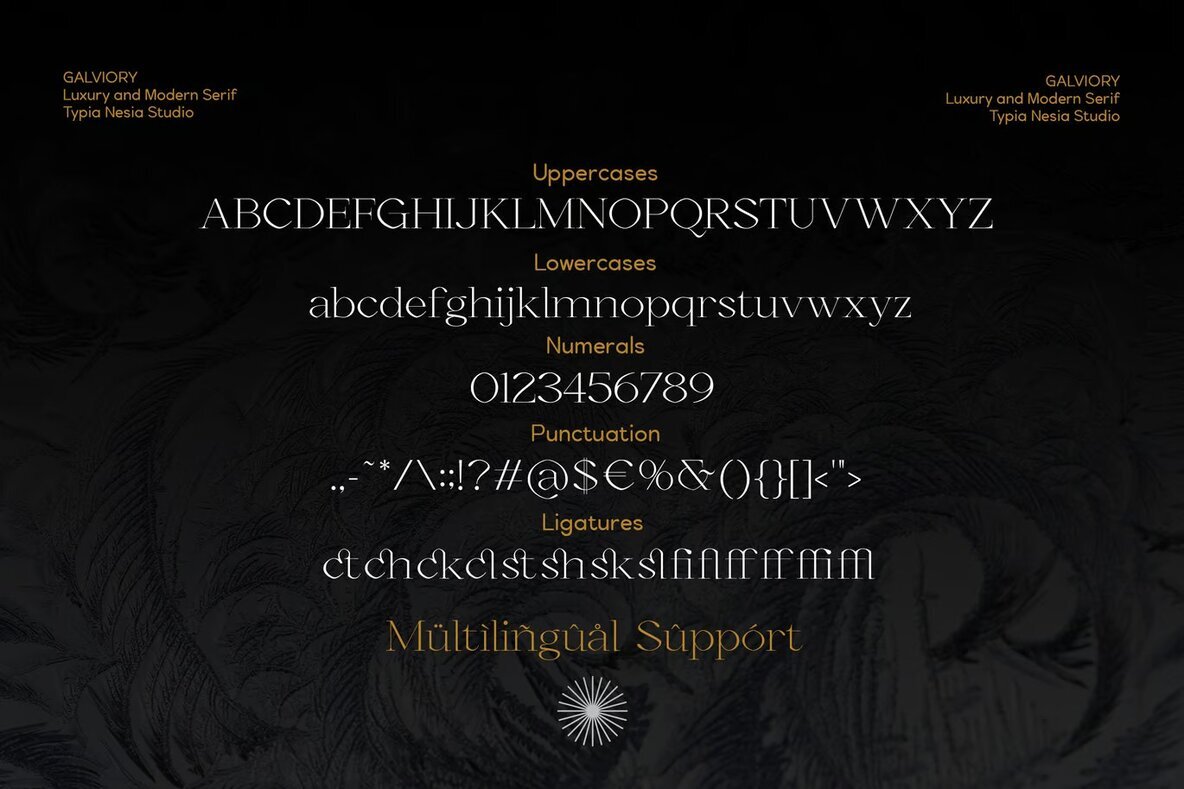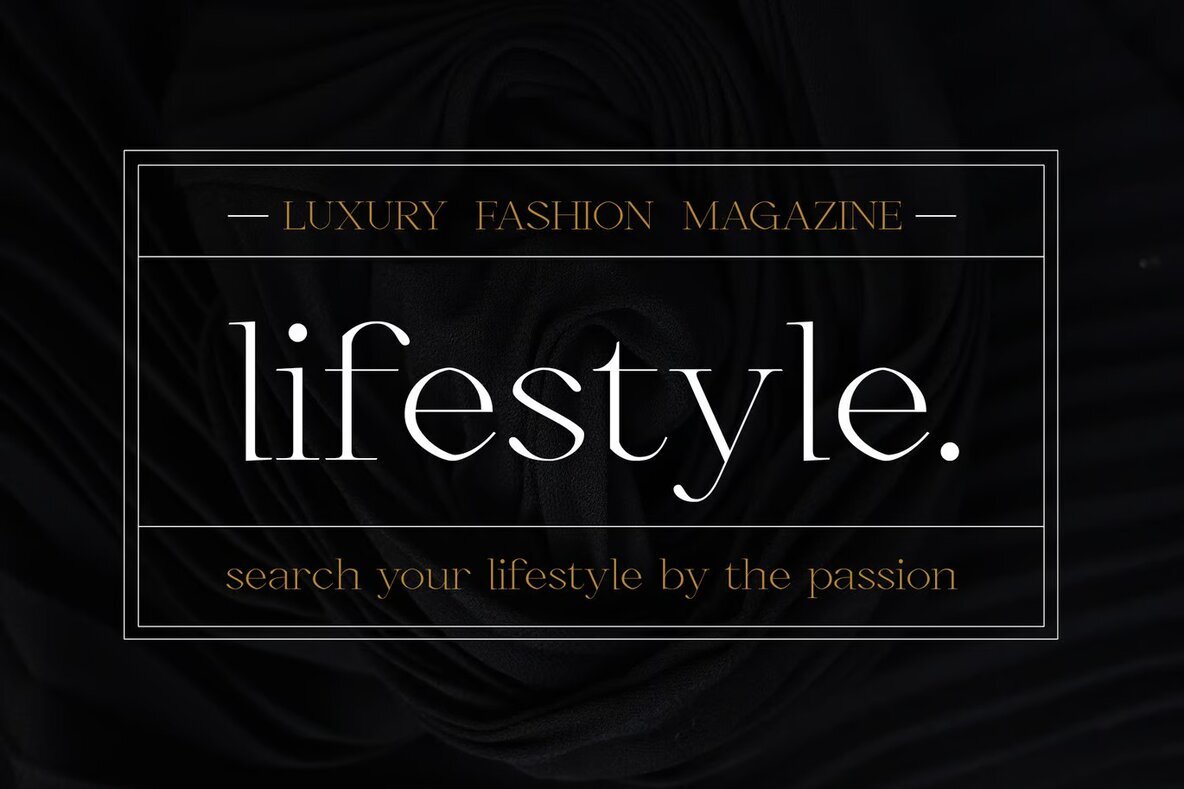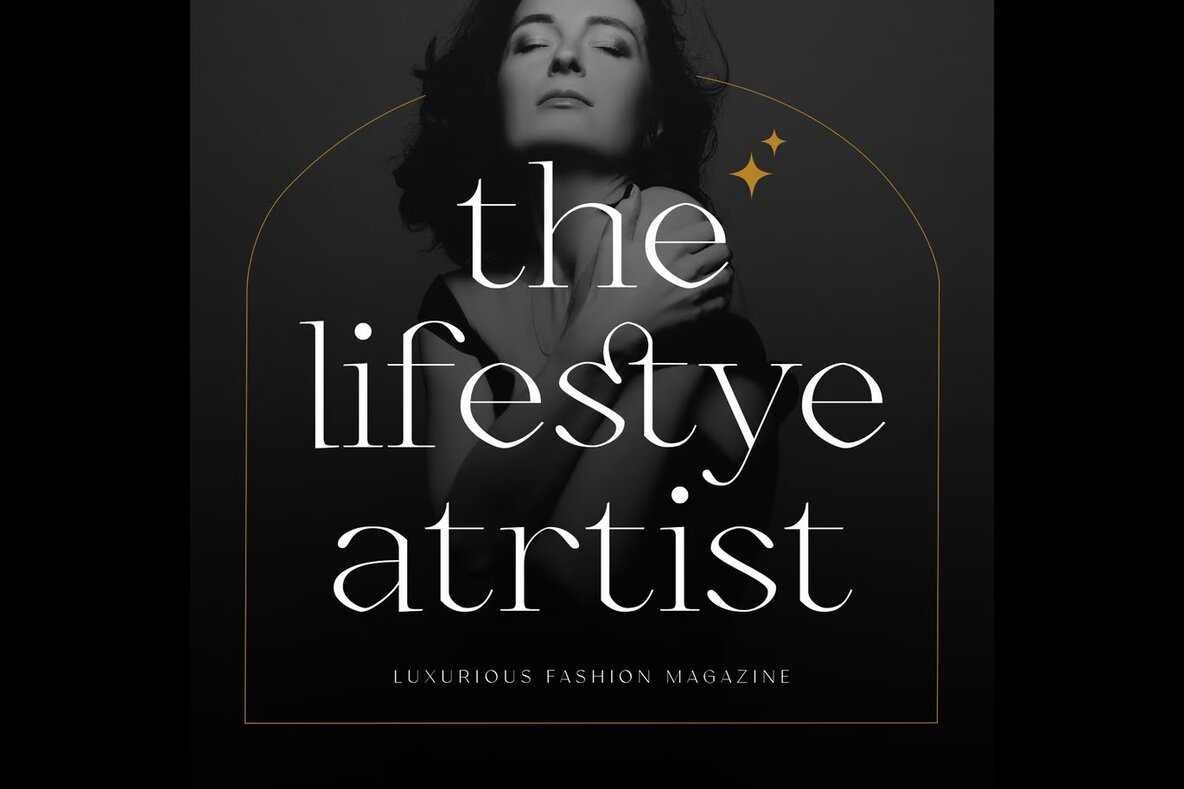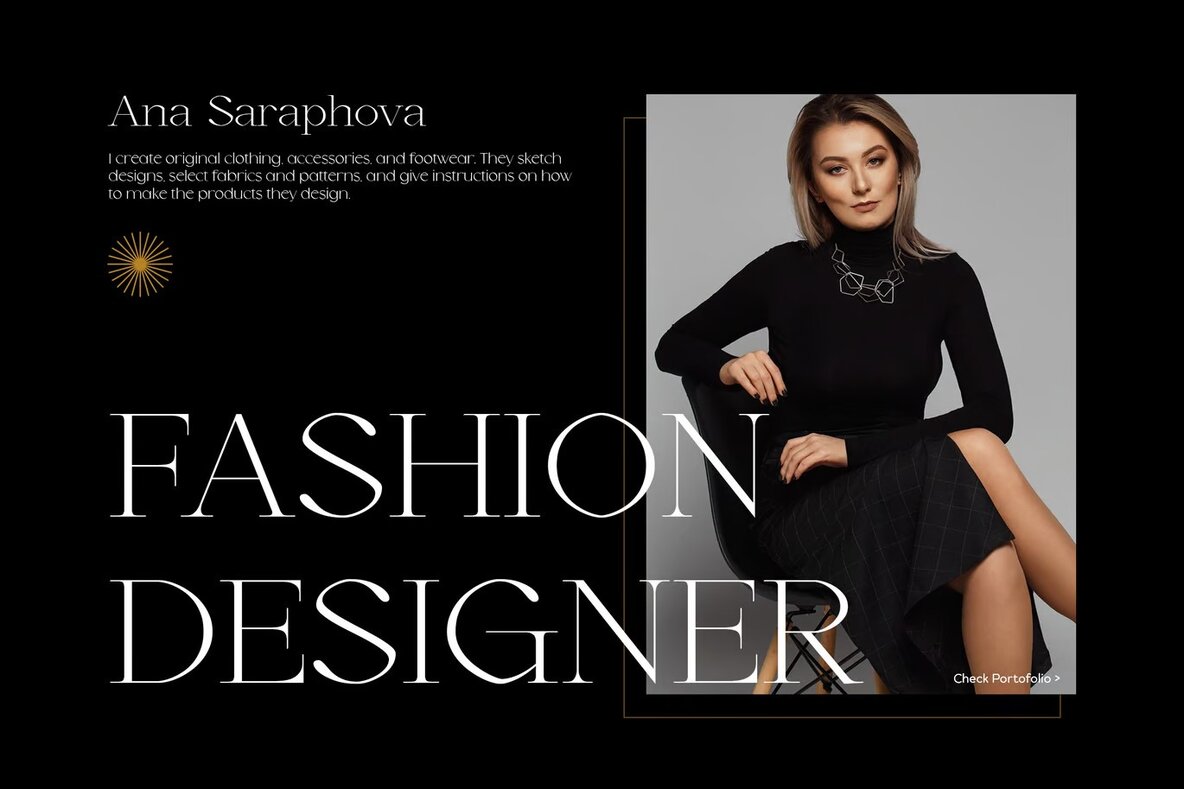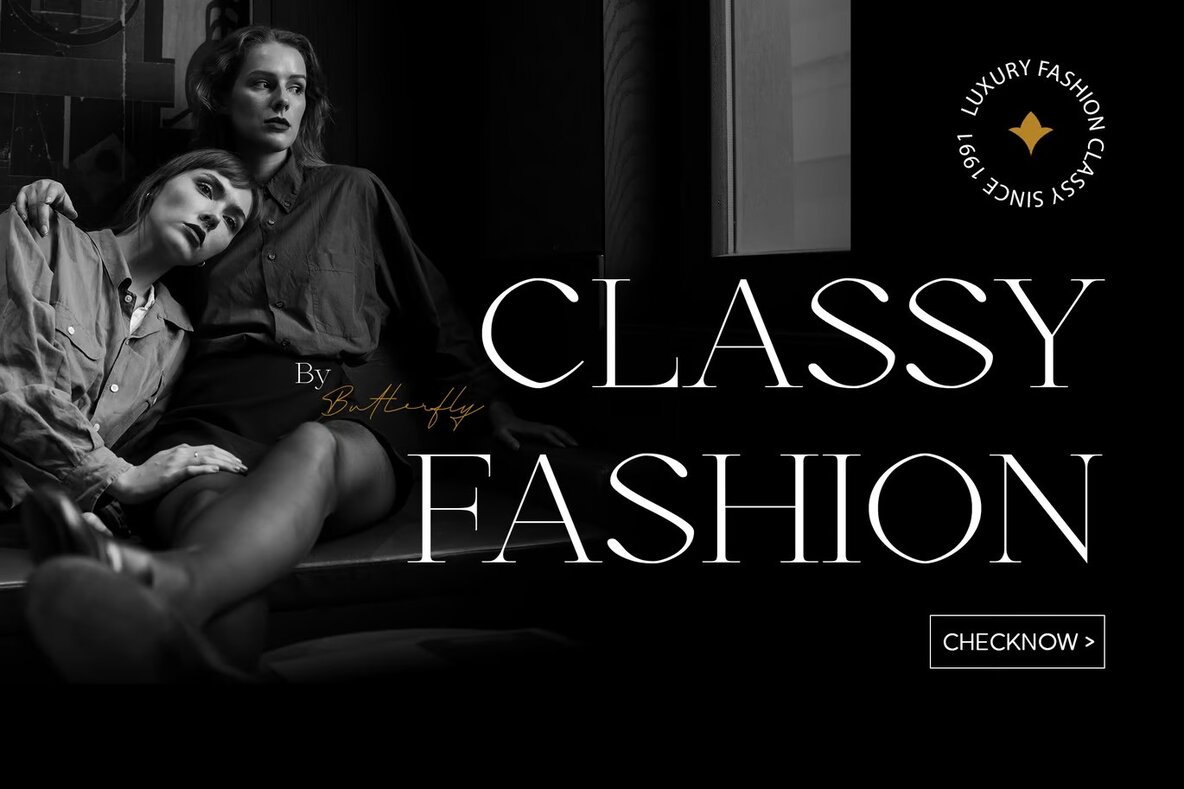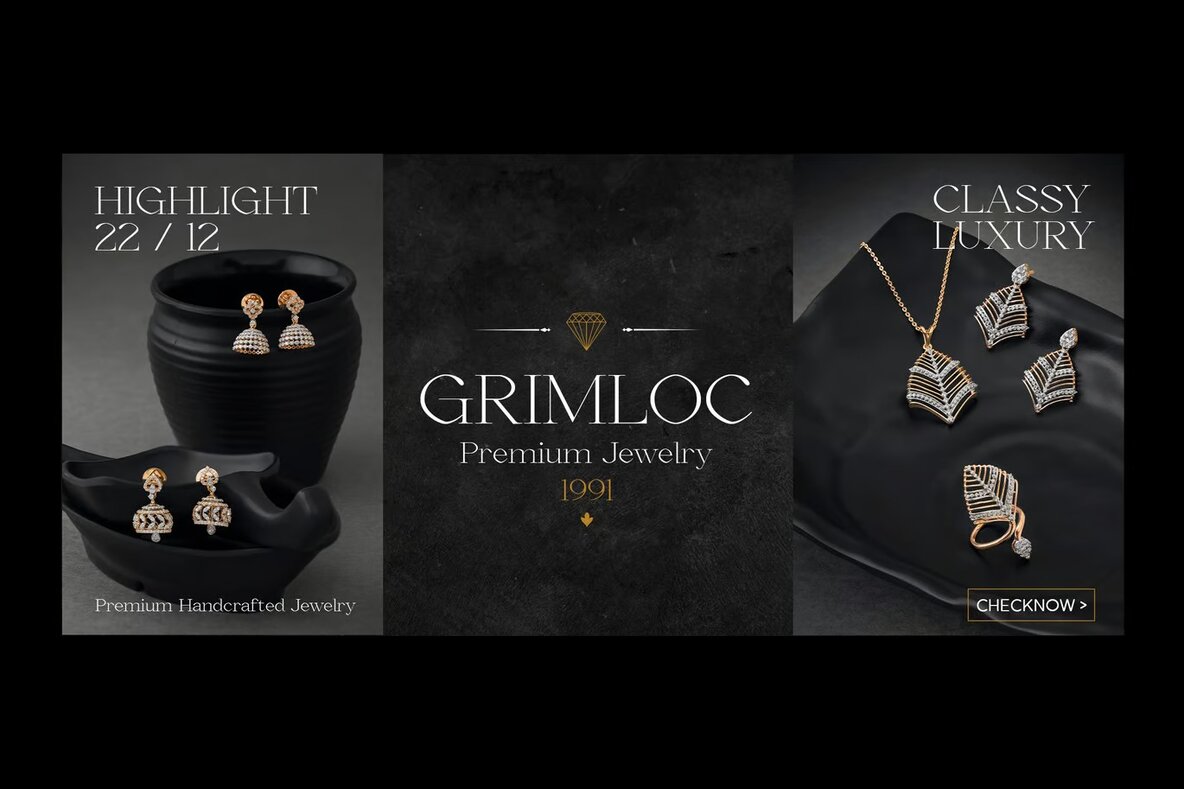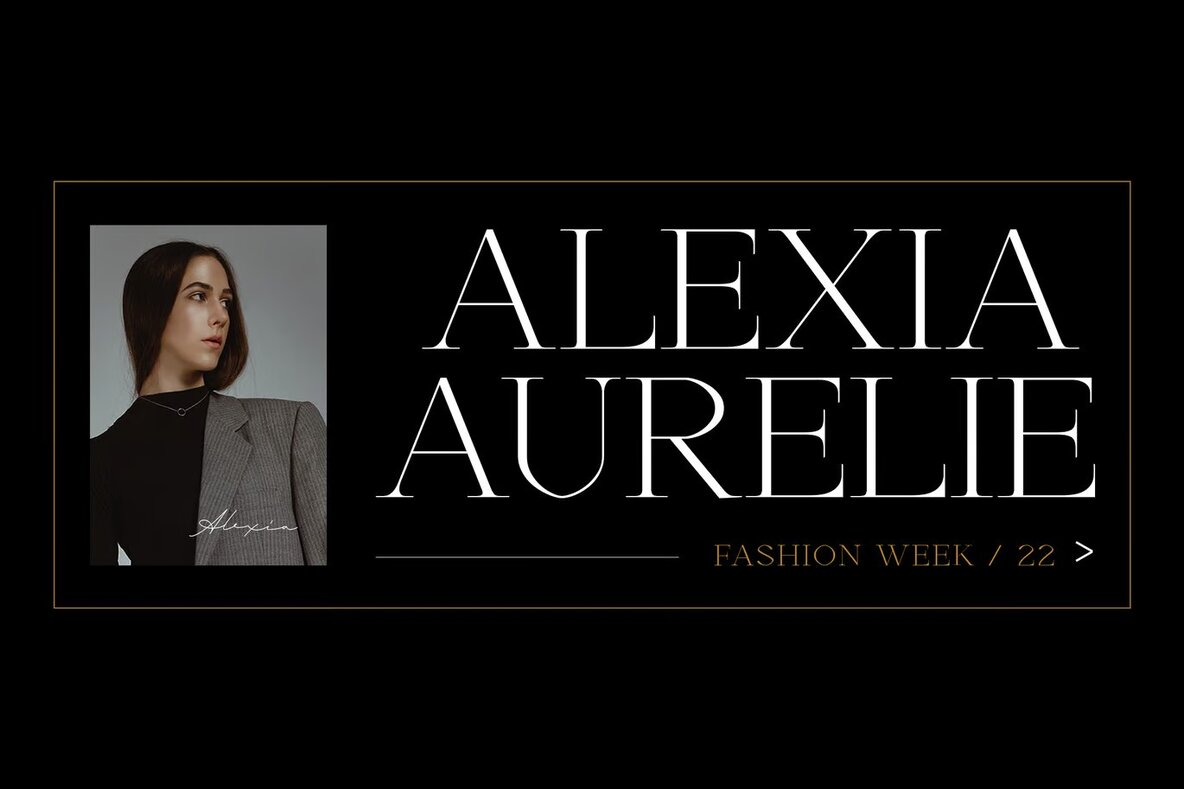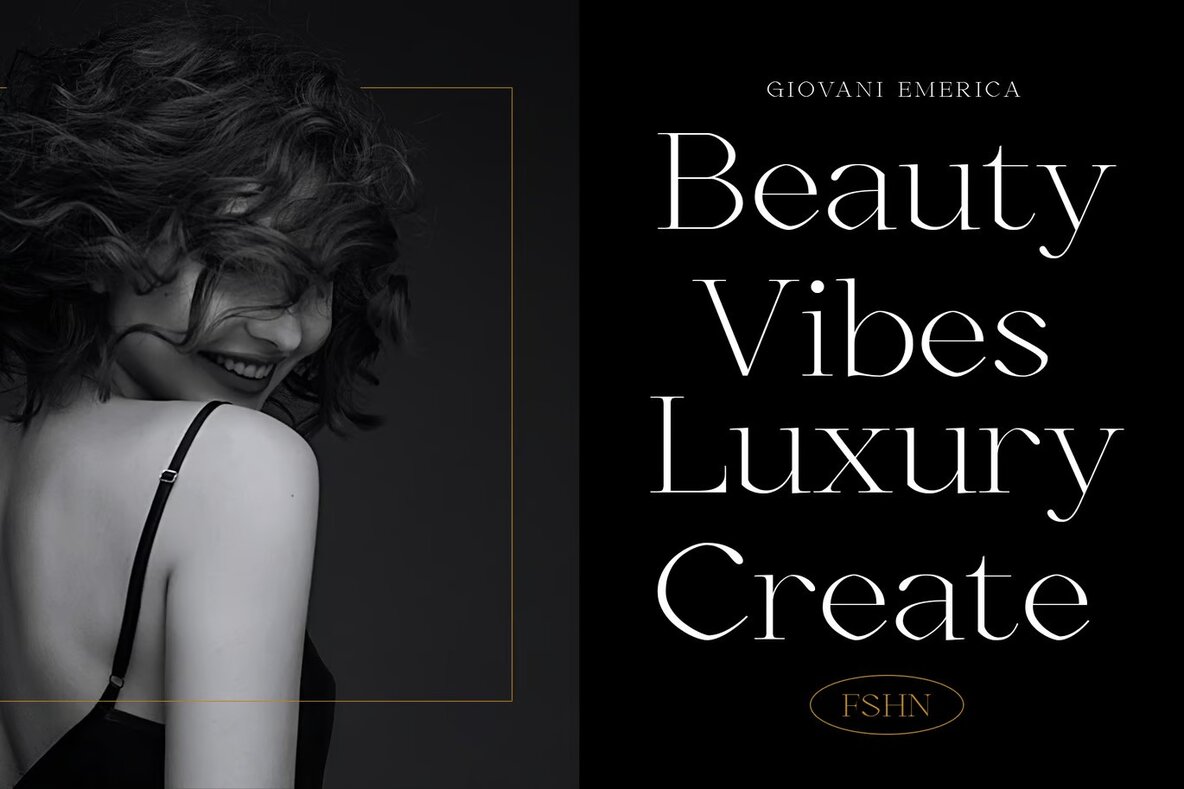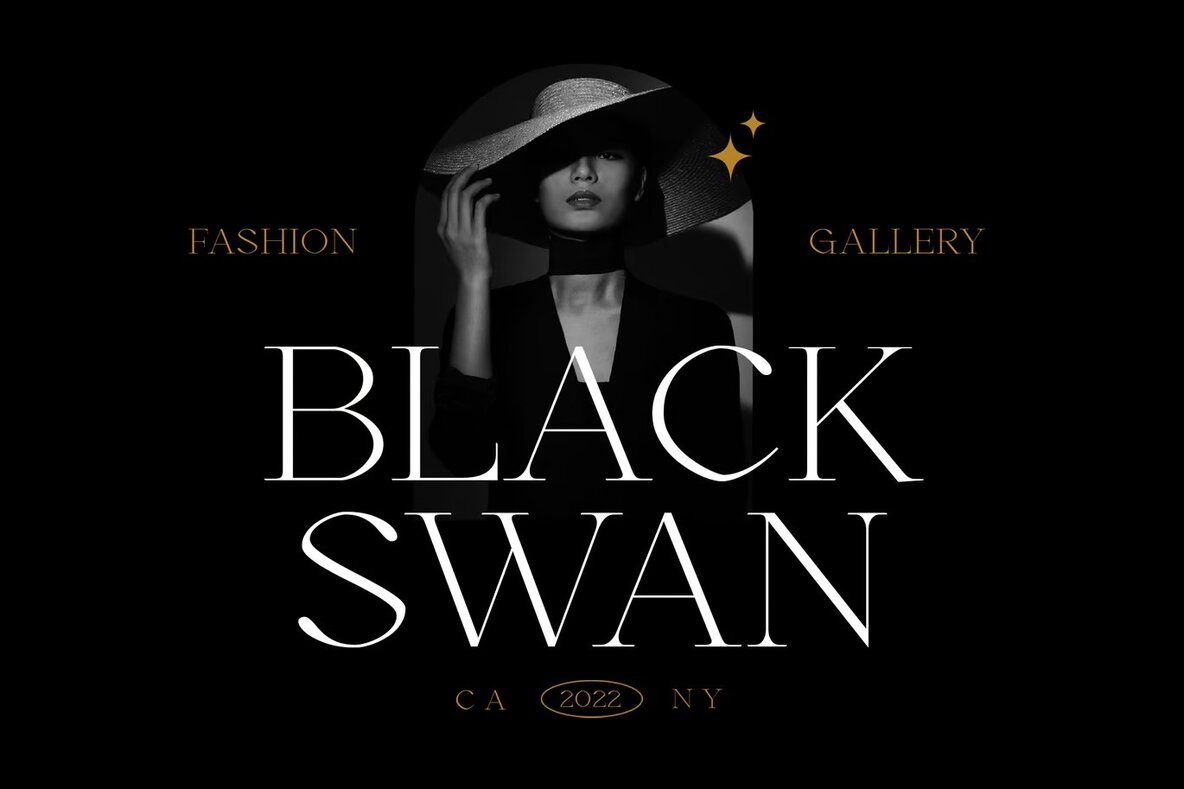
Galviory Font
Galviory Regular
Galviory by Typia Nesia Std is a modern serif font designed for elegance and sophistication. This font is ideal for luxury logos, branding, and various editorial and design projects that require a touch of class.Galviory: A Luxury Elegant Classy Modern Serif